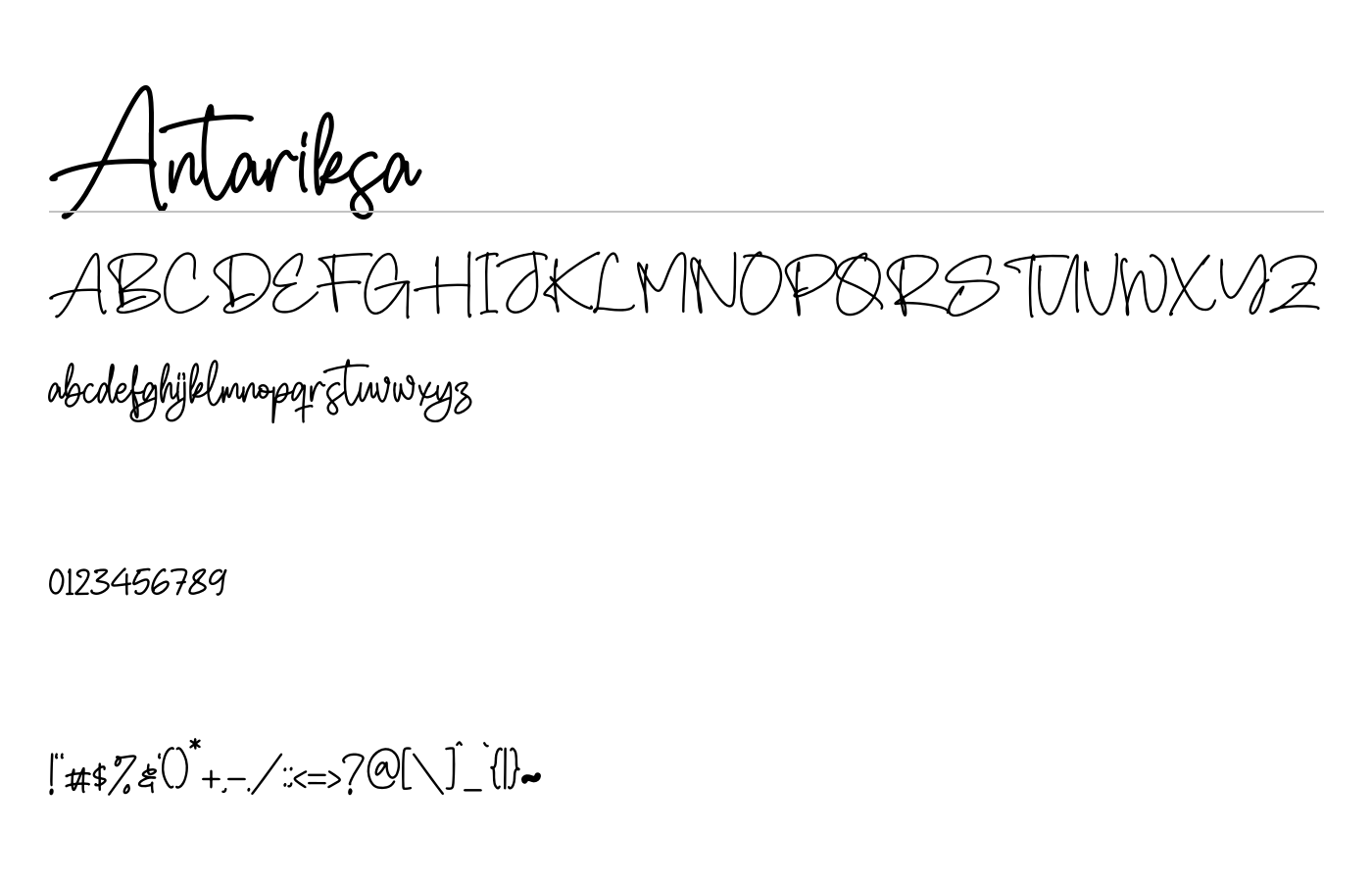
Antariksa is a delicate and modern handwritten script font with a natural, casual feel. Its slender, flowing strokes and tall x-height give it an elegant yet approachable personality, making it ideal for creative branding, invitations, and stylish editorial designs where a personal touch is desired. This font works beautifully to add warmth and individuality while maintaining clarity and style in both display and smaller text uses.
Antariksa Font
About Antariksa Font